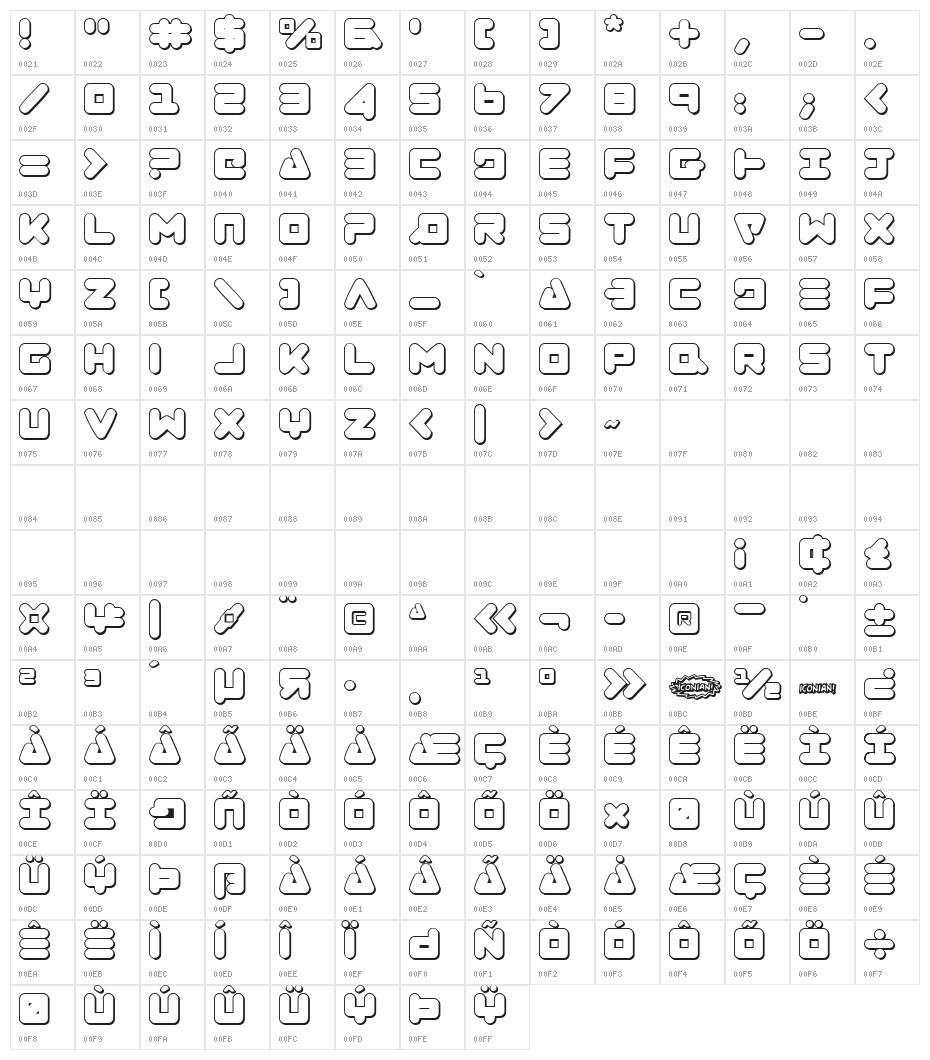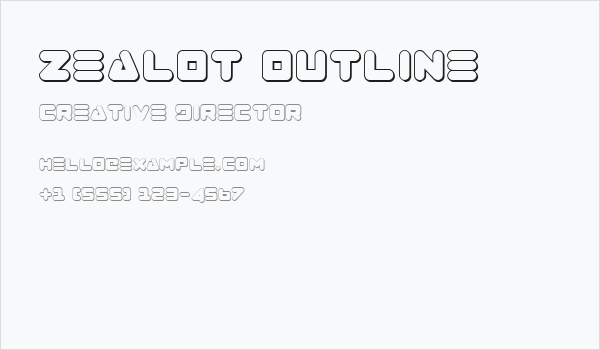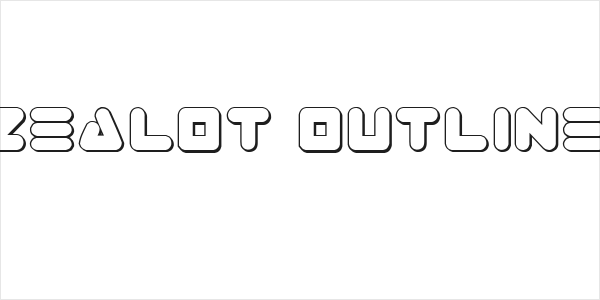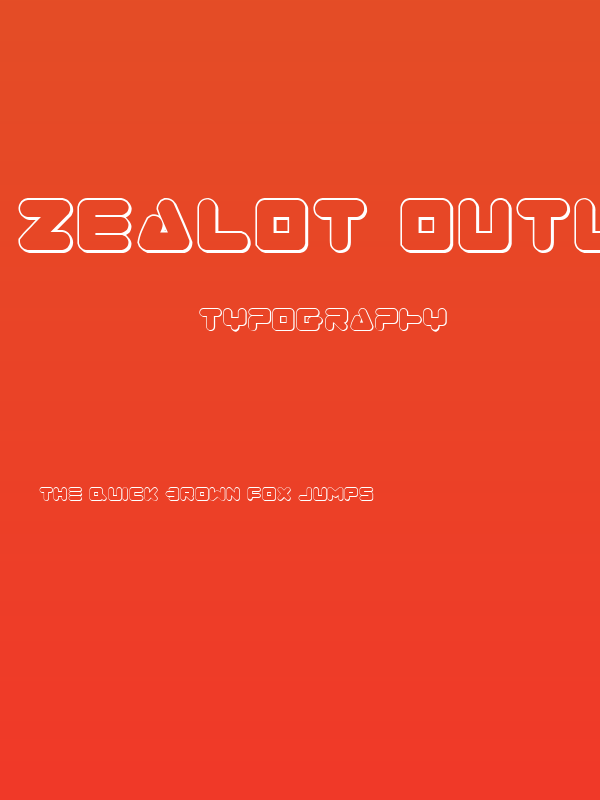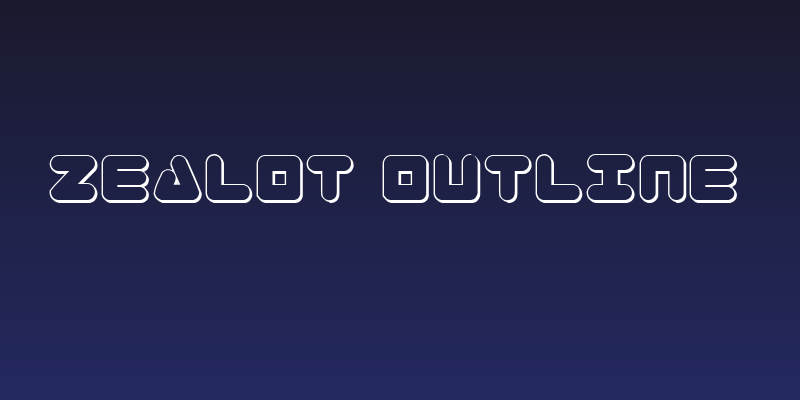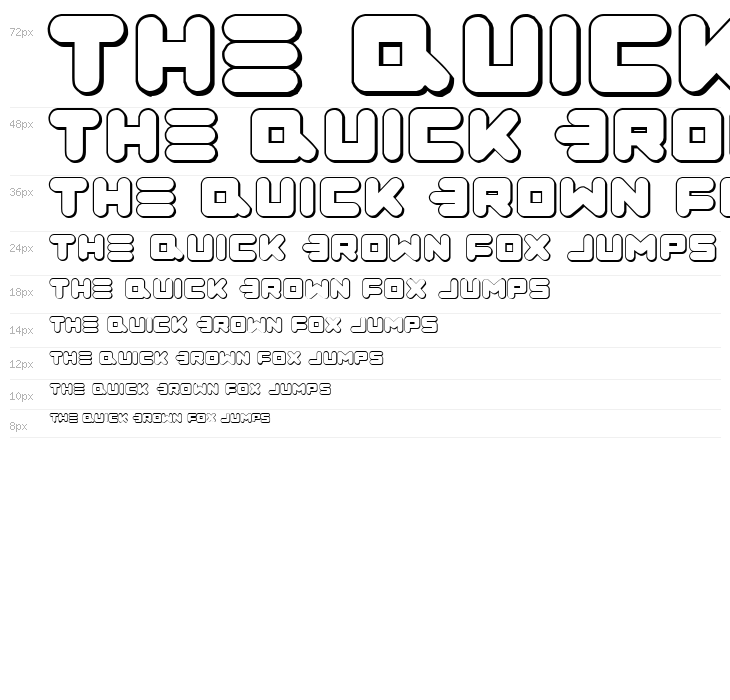
Zealot Outline Font
Zealot Outline Description
This font features a bold, geometric outline style with a futuristic and playful aesthetic. Each character is crafted with thick, uniform lines that form a continuous outline, giving it a distinct and eye-catching appearance. The letters are uppercase and maintain a consistent height, contributing to a cohesive look. The rounded edges and smooth curves add a friendly and approachable feel, while the angular elements introduce a modern twist. The numbers and special characters follow the same design principles, ensuring uniformity across the entire character set. This font is ideal for projects that require a bold statement and a touch of modernity.
| Proposed Projects | Ideal for logos, posters, video game graphics, and any project needing a modern, standout typeface. |